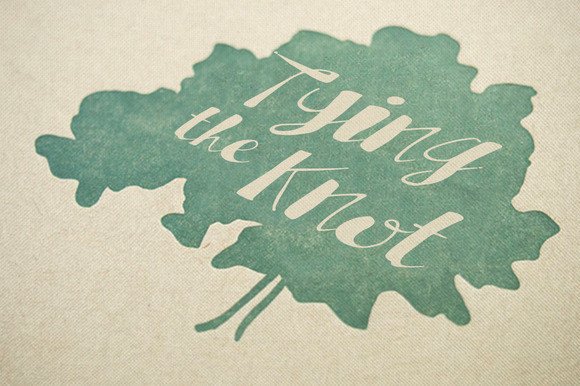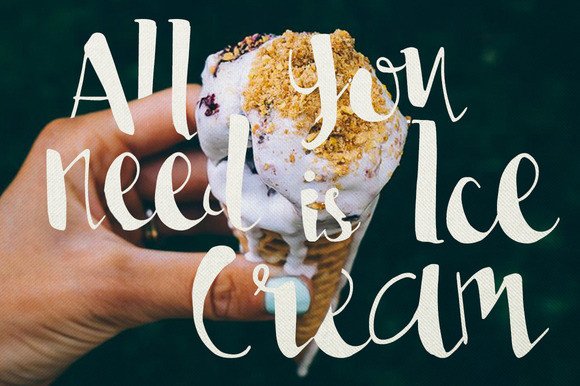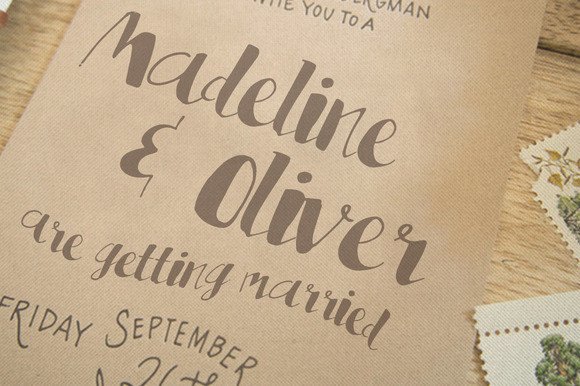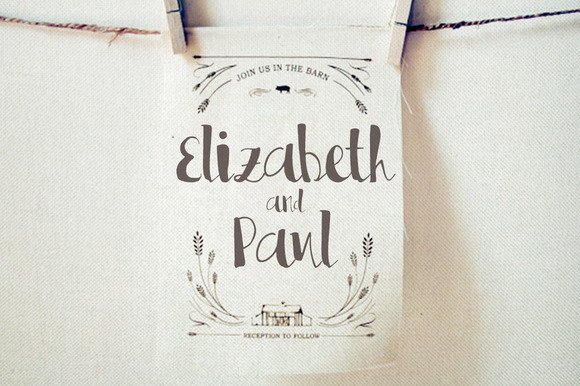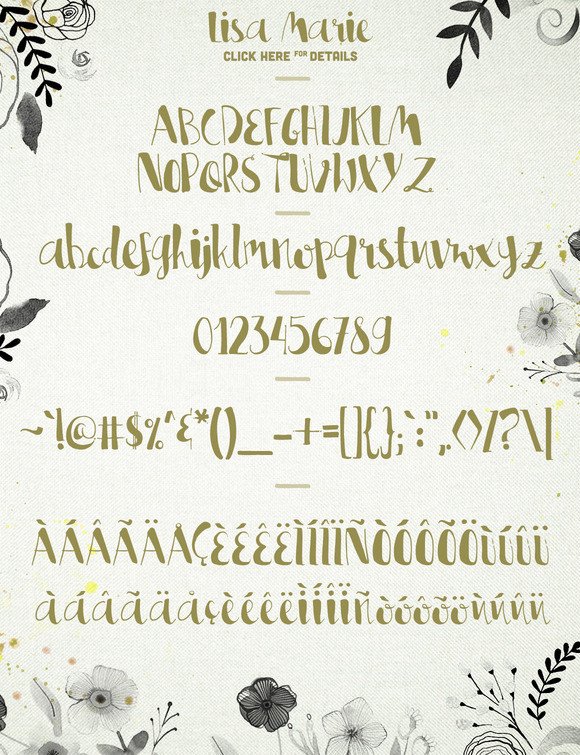
Lisa Marie Font
About Lisa Marie Font
Lisa Marie is a cutesy, fun display font that is perfect for girly or Spring Time projects! This handwritten script is legible yet decorative enough for tons of uses.